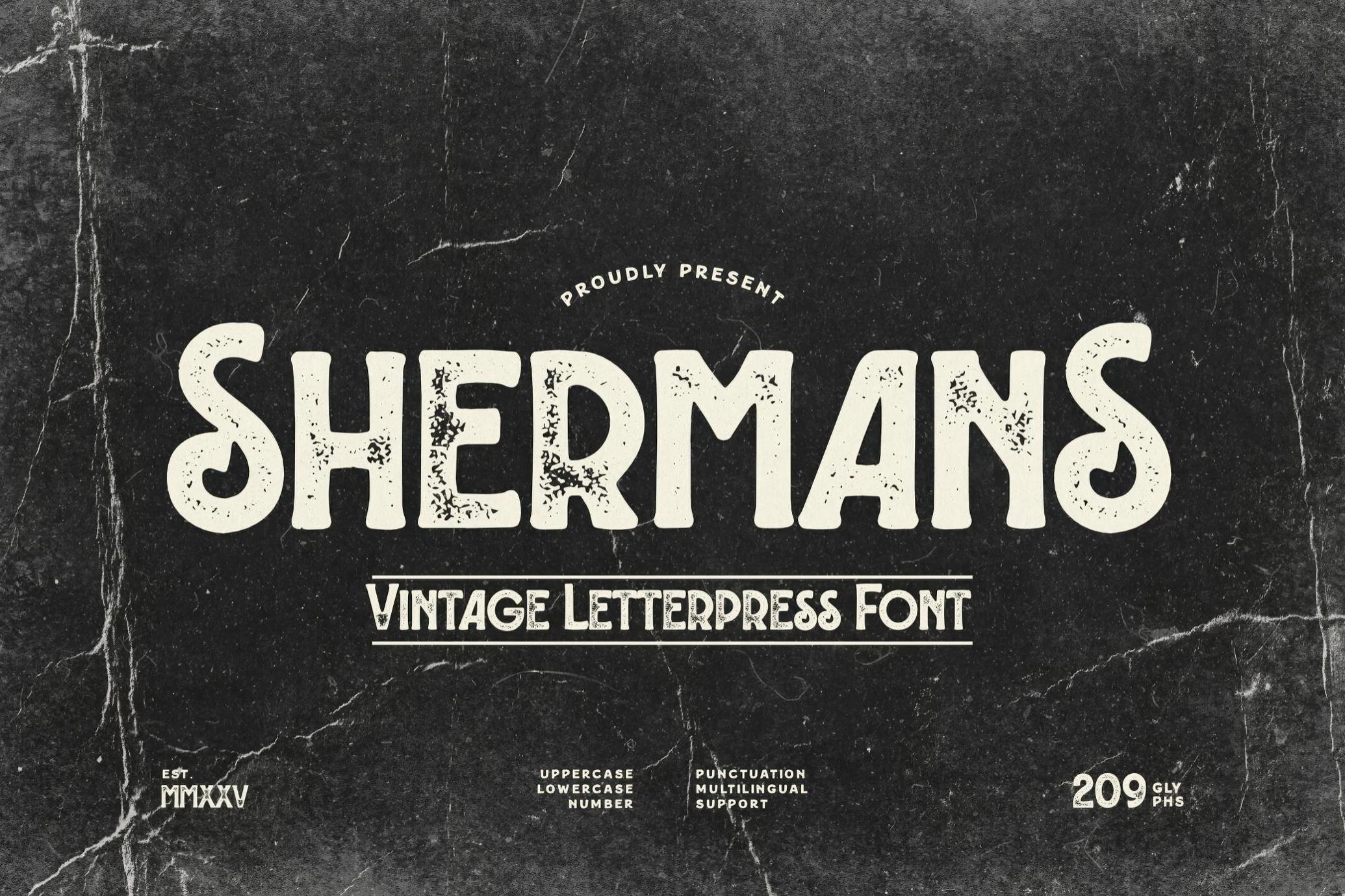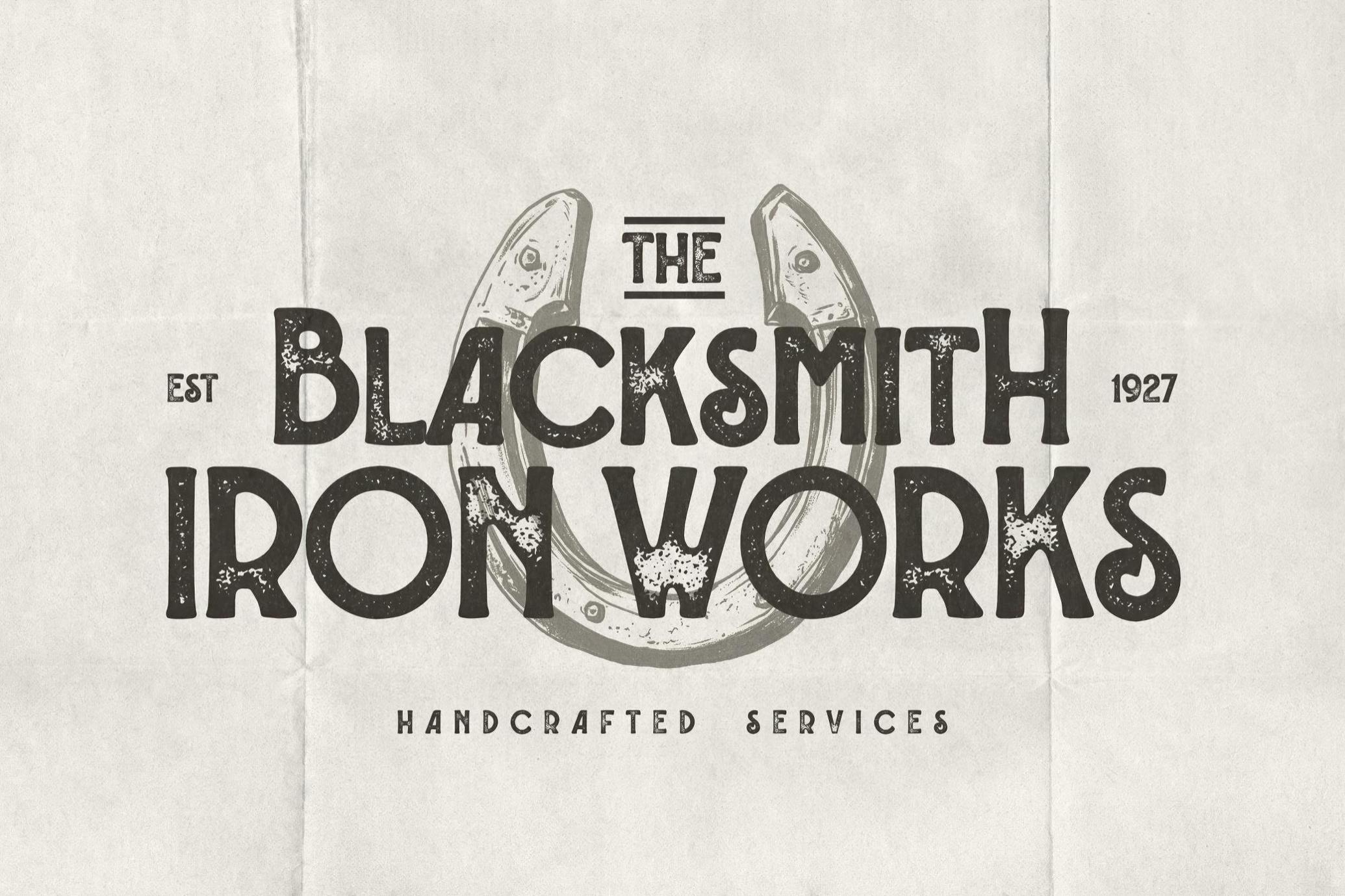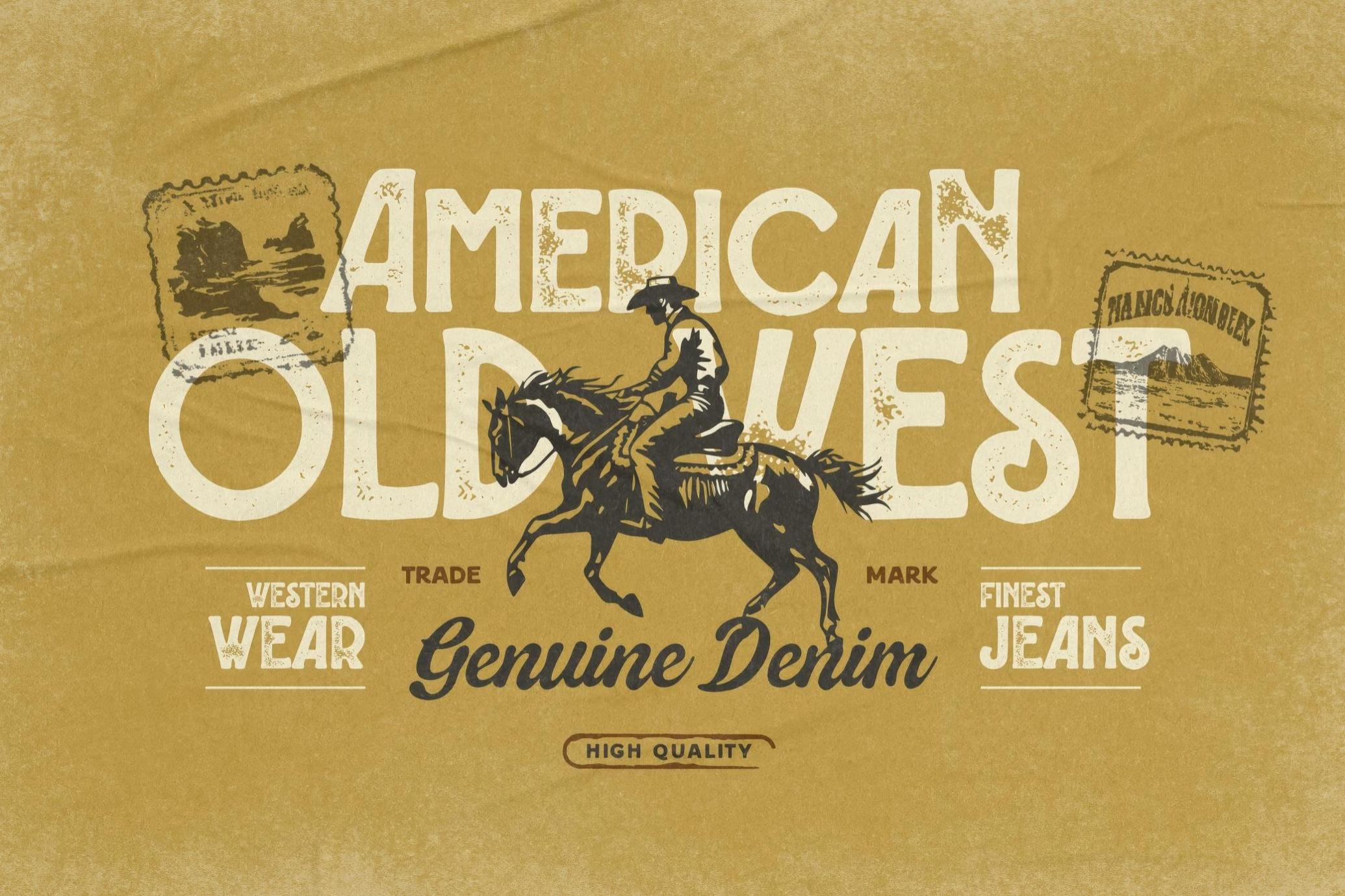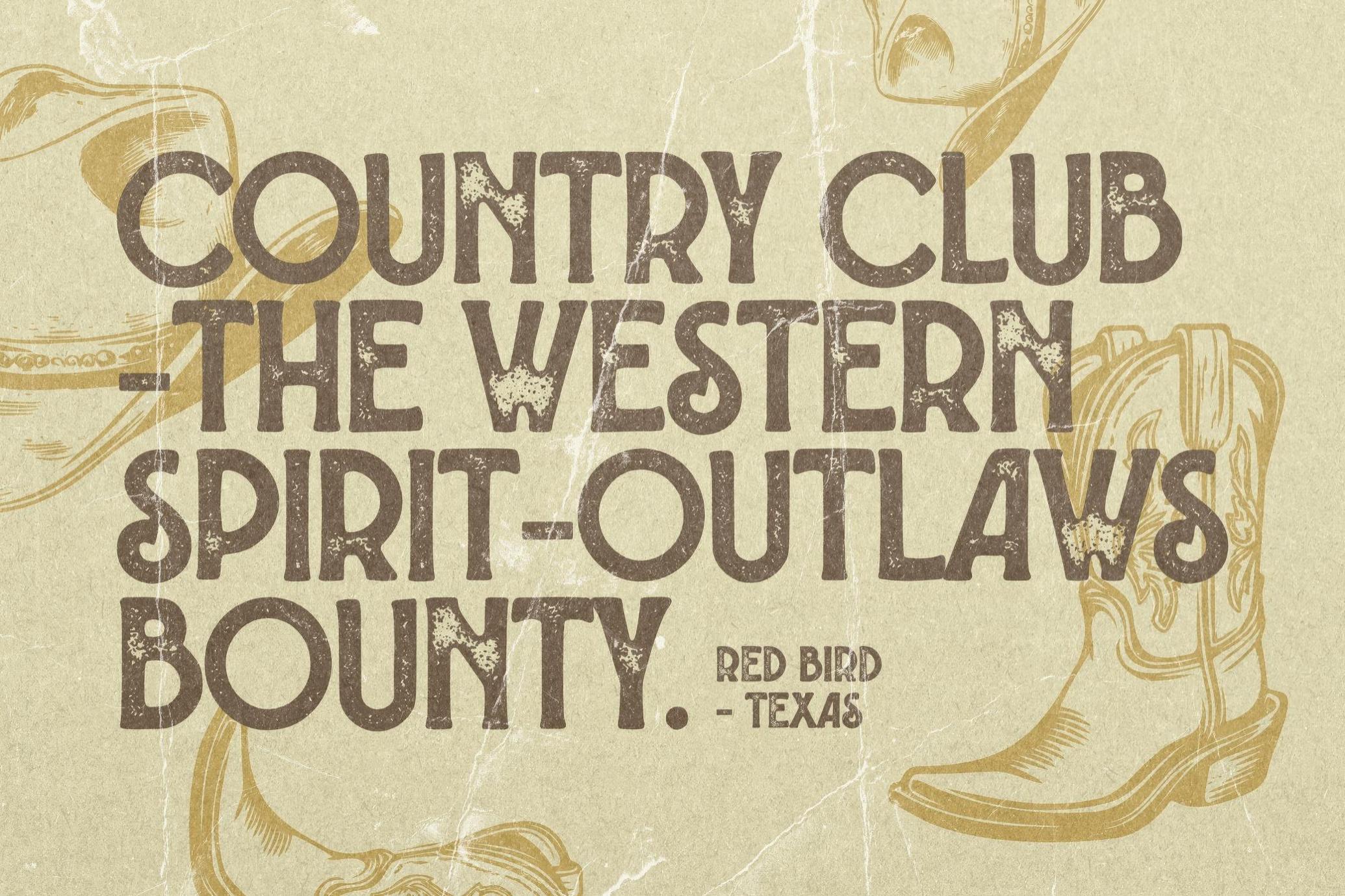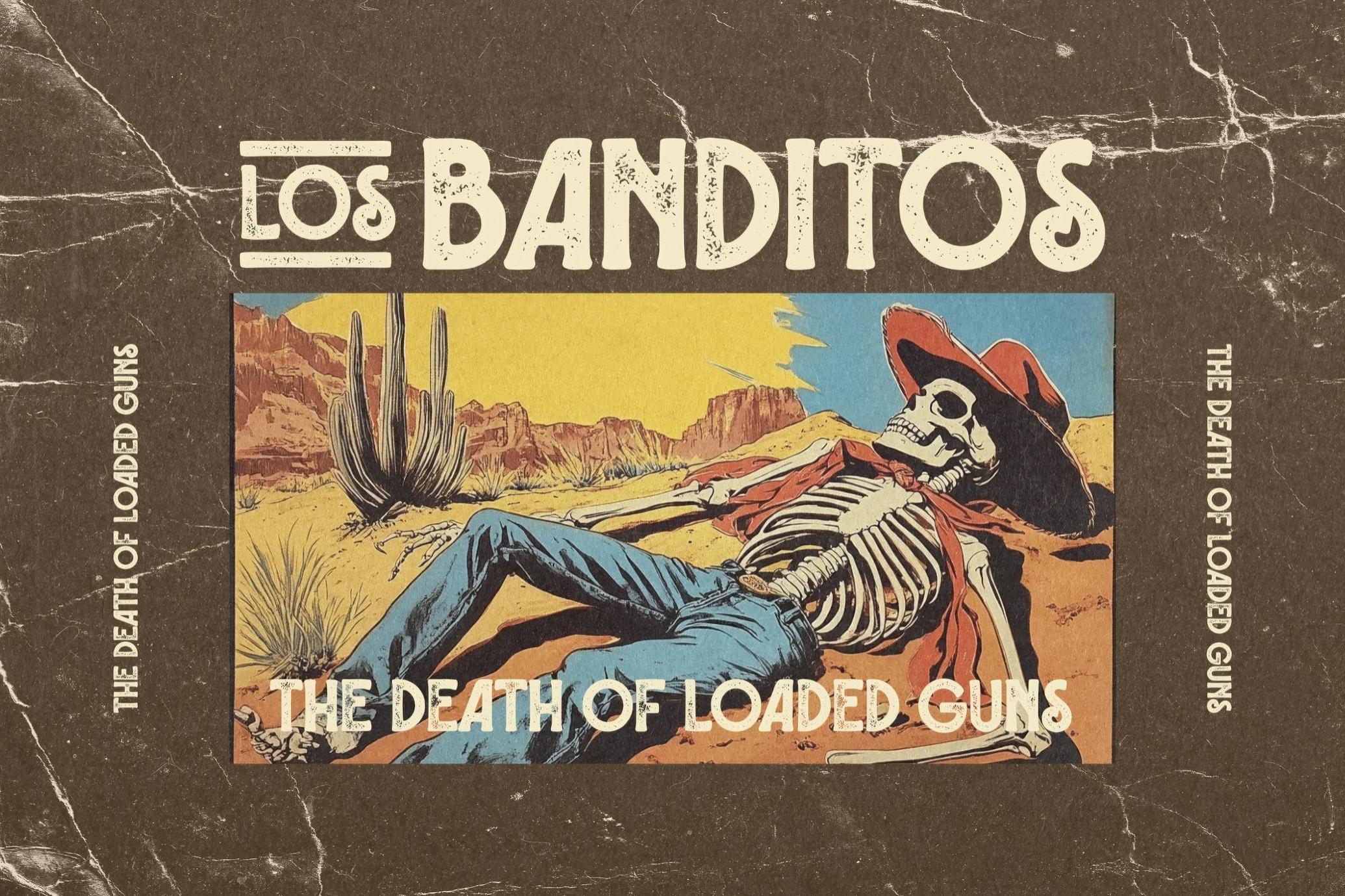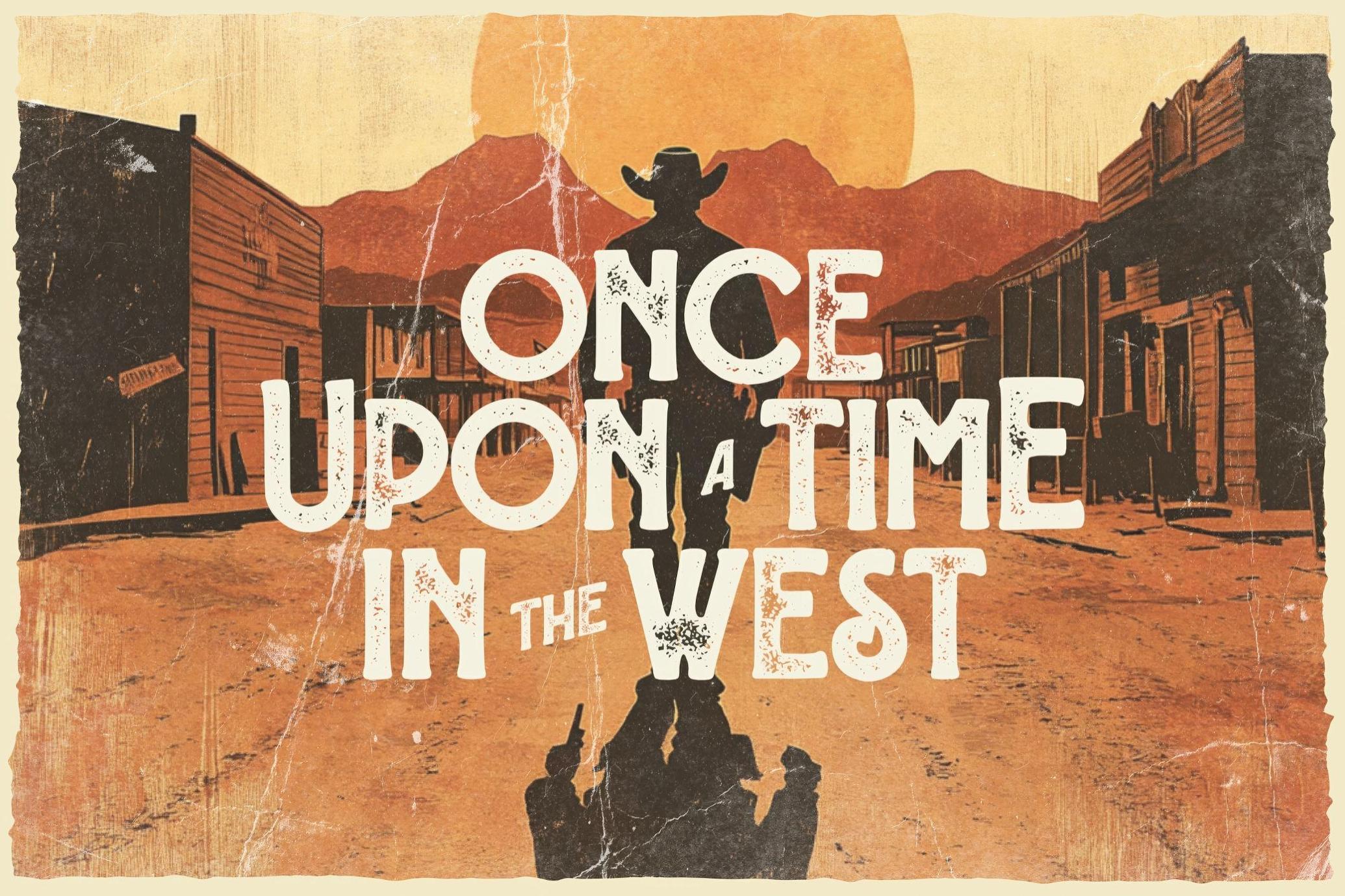
Shermans Vintage Letterpress Font
Shermans
Shermans celebrates the raw craftsmanship to the tiniest punctuation mark. It's strongly influenced by classic print shops and old-school signage — you'll see precisely the same distressed, organic look that perfectly suits anything rustic and aged. Shermans is best suited for branding for craft goods & small-batch labels. It's packaging for coffee roasters, breweries, apothecary items, or handmade soap — as well as a faded t-shirt or a patch on a canvas tote.
Inside: a complete character set. Uppercase and lowercase letters, numbers, punctuation, and multilingual support.